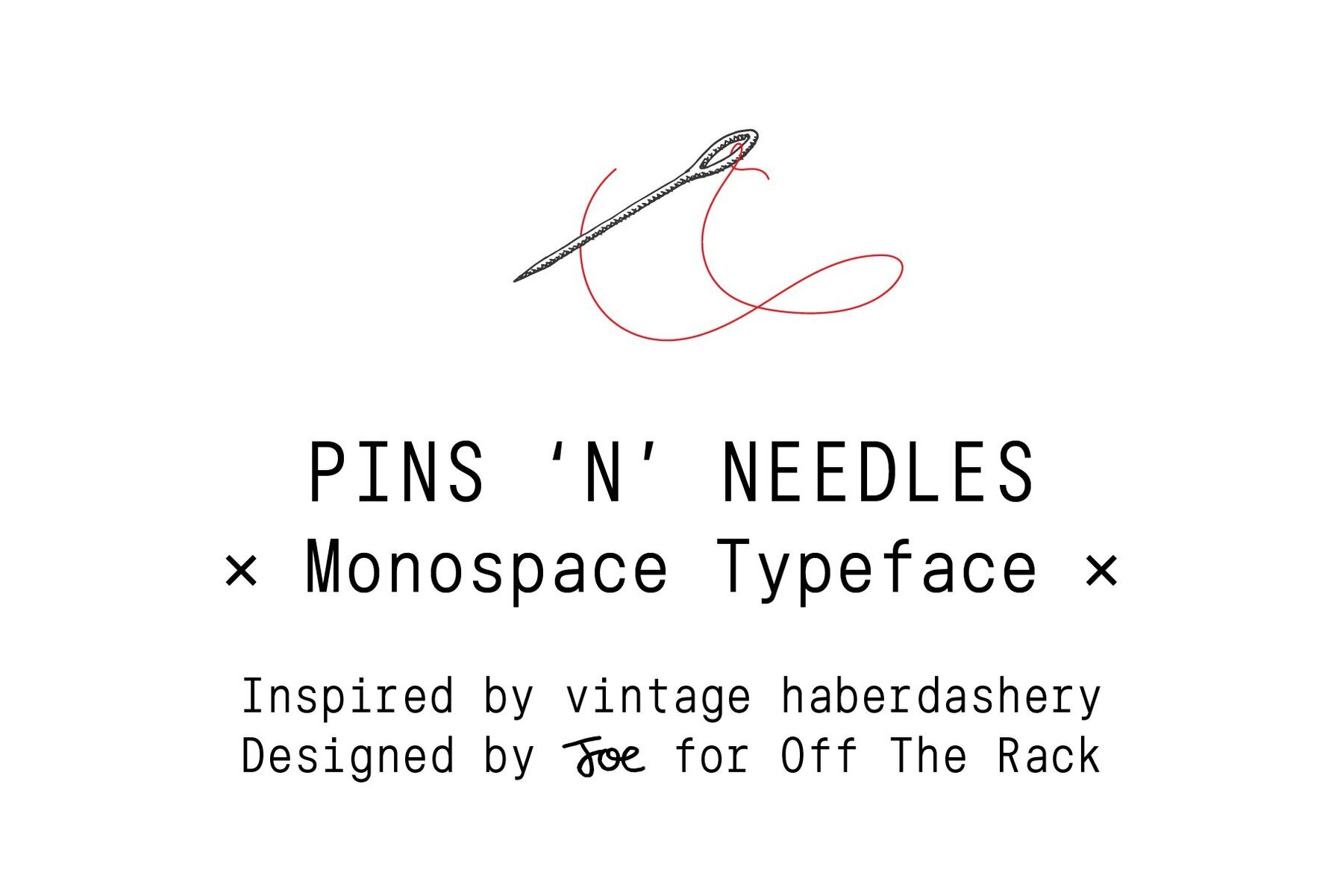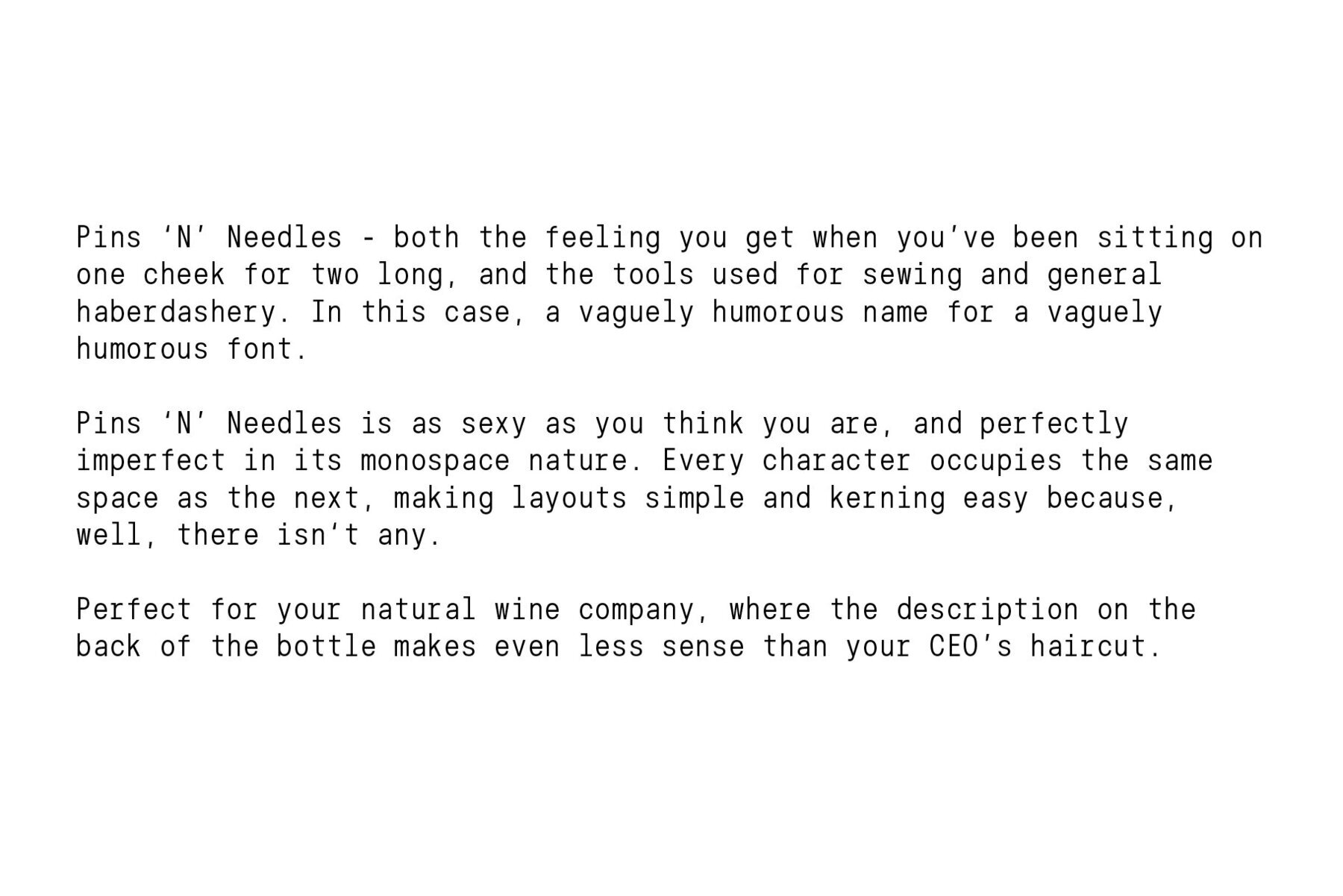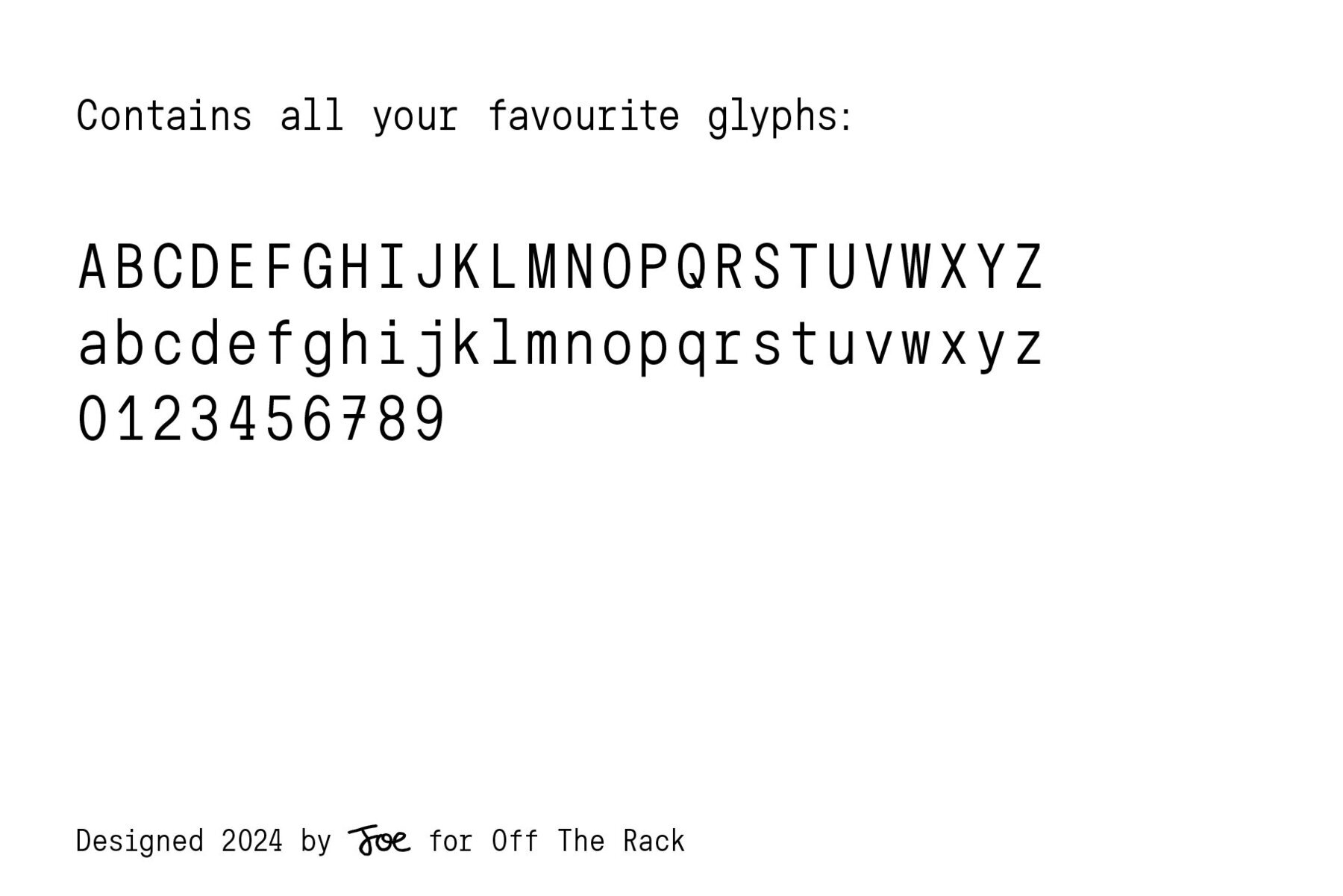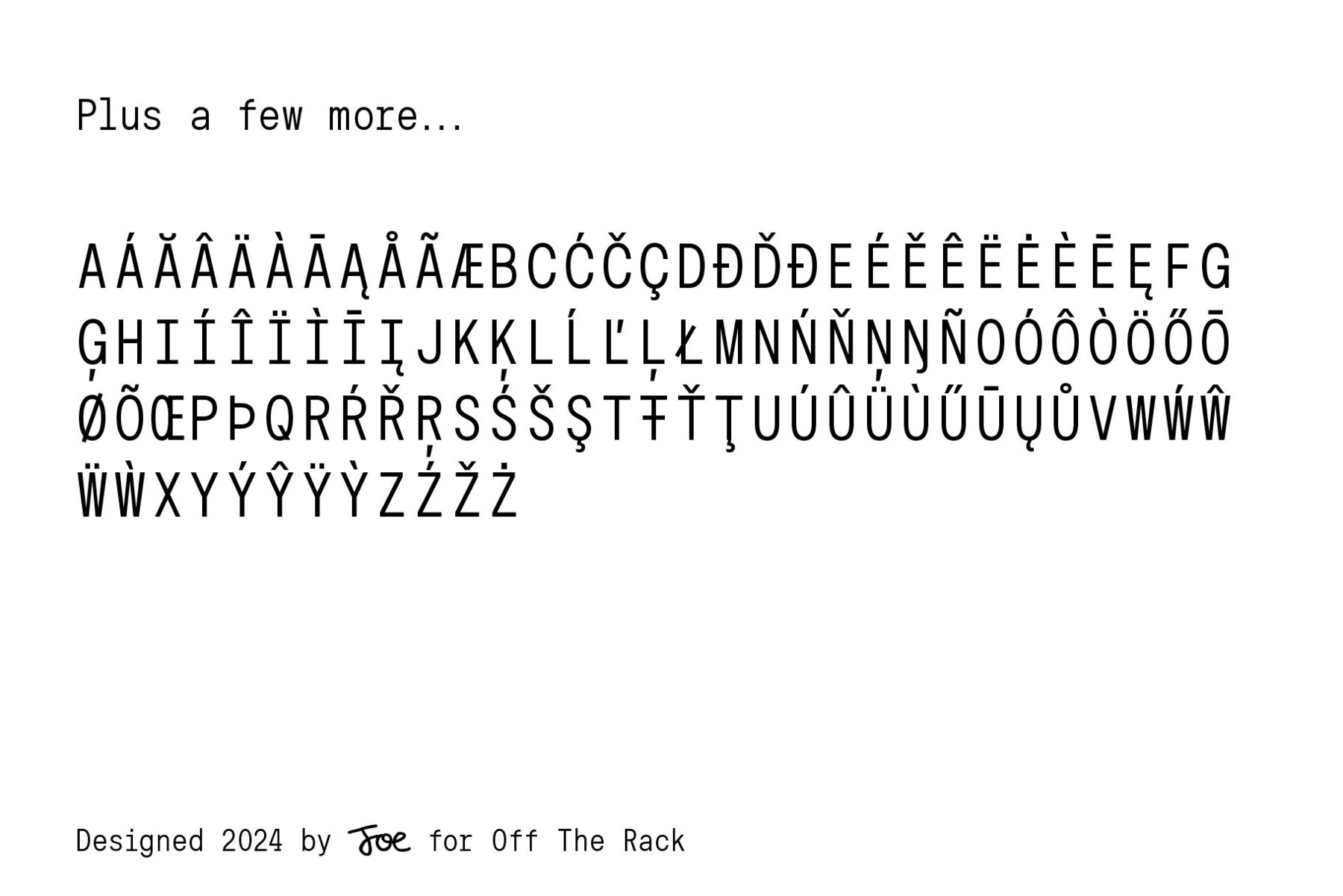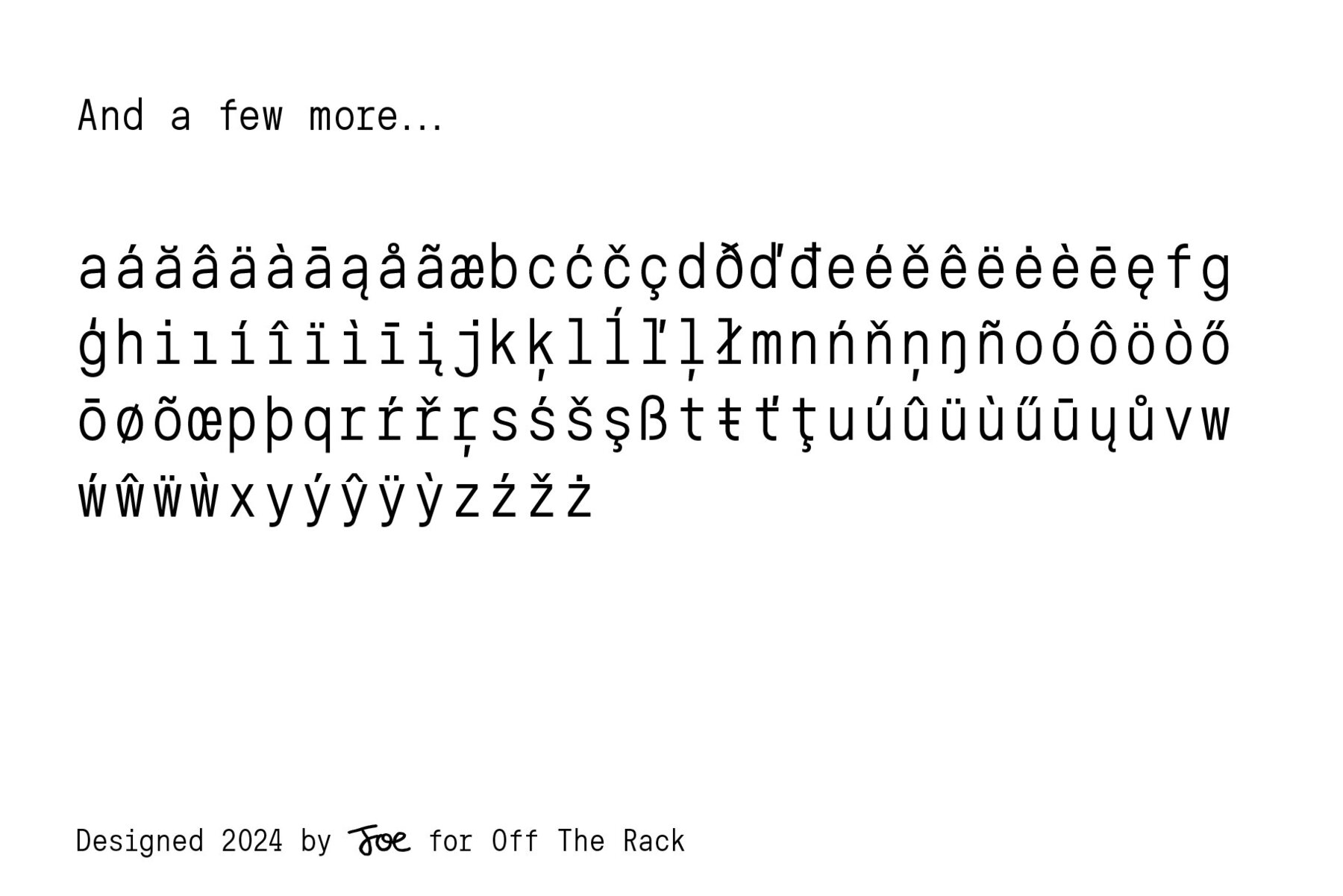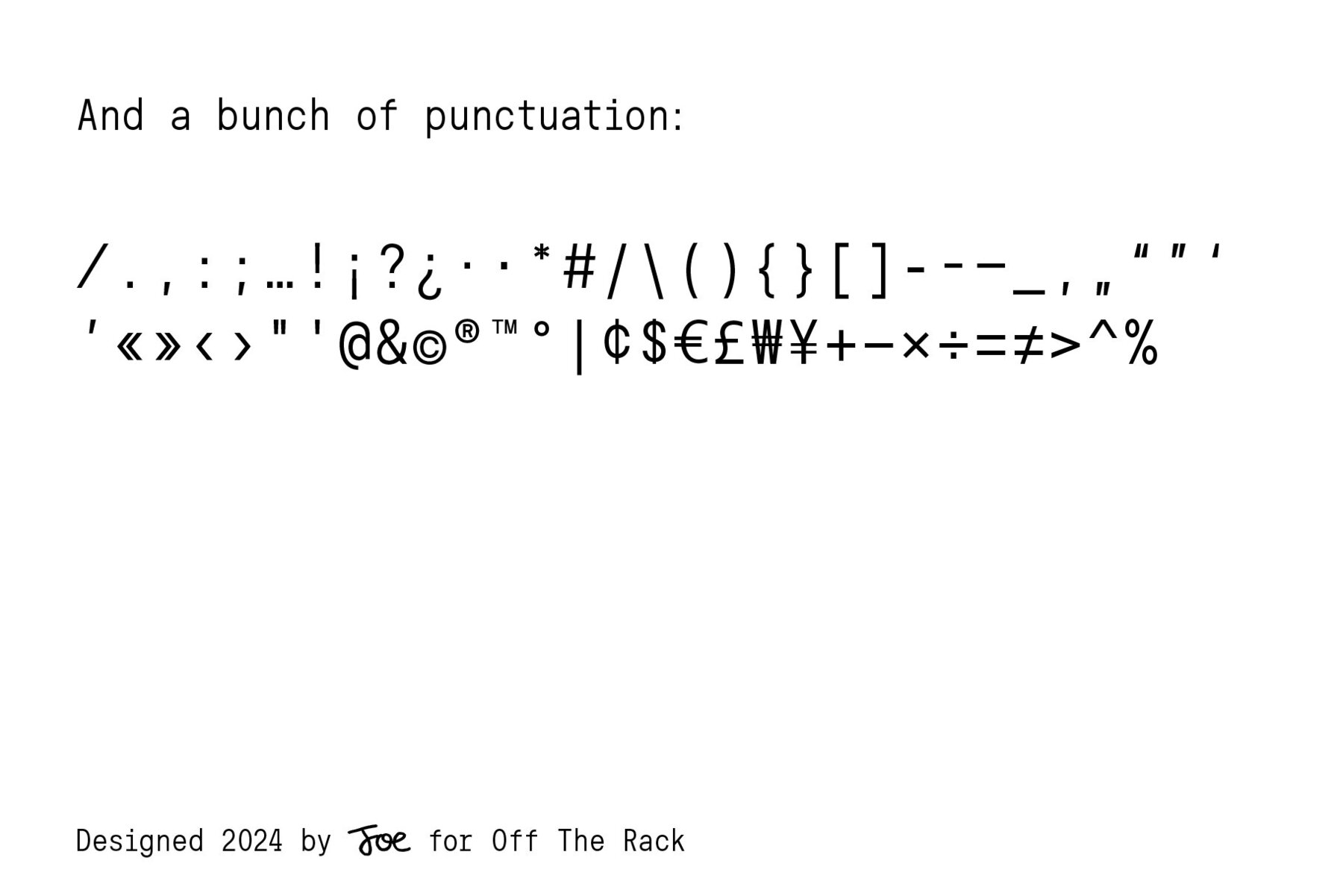
Pins N Needles Font
OTR Pins N Needles Mono
Pins N Needles was designed with trendy natty* wine bars in mind, perfect for confusing-but-creative product descriptions and web copy. Incidentally, it's named after the feeling you get when you've been sitting on one cheek for too long, which is how I felt by the time I'd finished making it. Pins is a monospace typeface, meaning no kerning is required as each character occupies the same space as the next (which has the added benefit of making layouts really easy). It's a bit weird, it's clean, it's sexy, it's all the things you wish you were. Pins was designed for the Weirdo, but it does a good job of faking it in 'polite' company. A true chameleon of a font - I'm sure you'll find a million uses for it. Happy fonting, (Contains 308 glyphs and language support for over 80 languages) *Natty - the 'cool' way of saying 'natural'